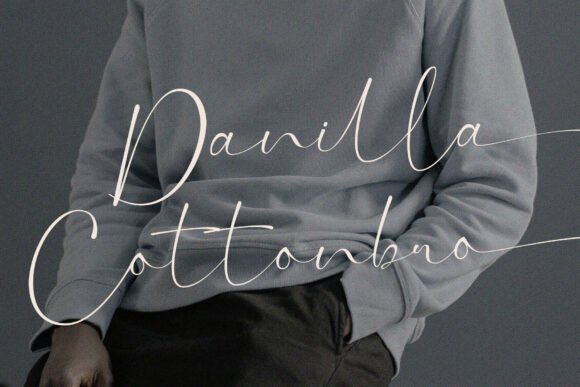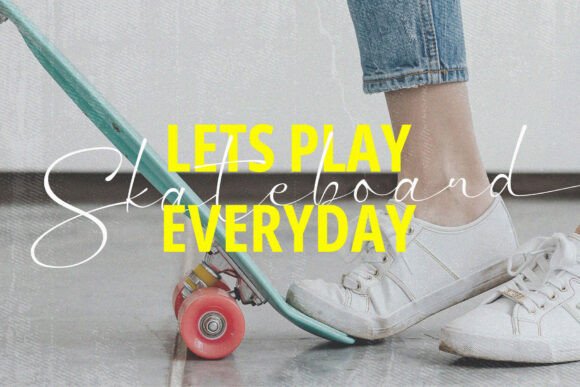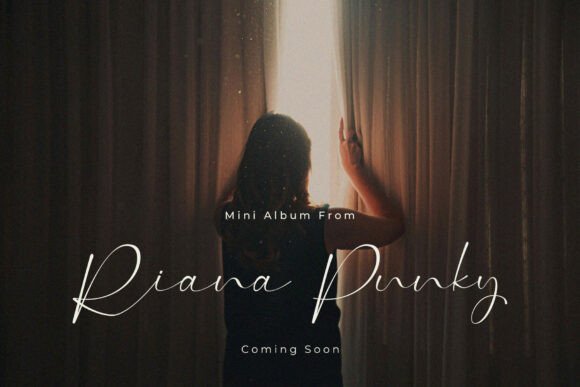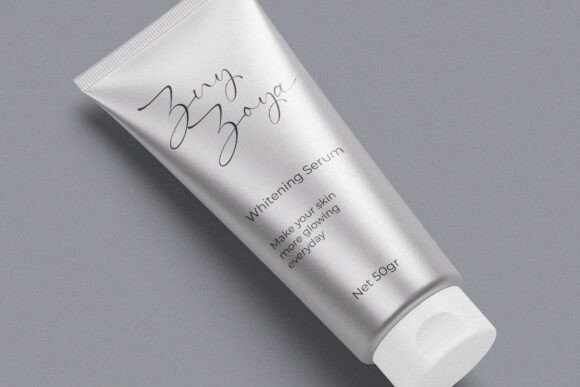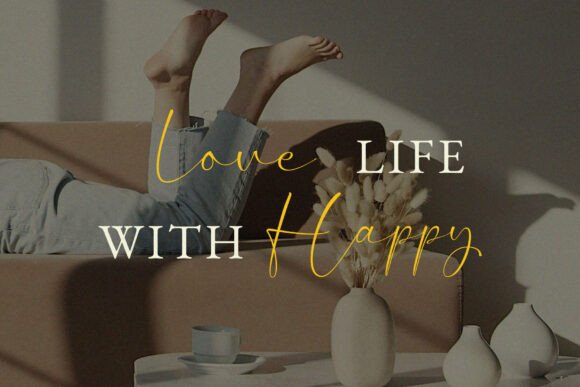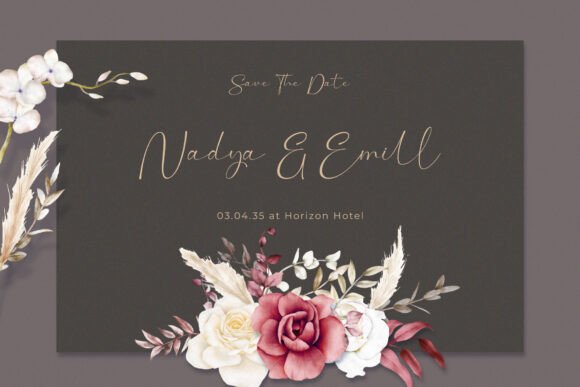
Introduction to Romantic Session Font
Have you ever been working on a creative project and suddenly, a spark of inspiration hits you? The words flow effortlessly, and your design comes to life. For designers like you, finding the perfect font can be the difference between a good design and a great one. That’s where the new Romantic Session Font comes in – a beautiful, high-quality handwritten script that will elevate your designs to the next level.
With its elegant and stylish design, the Romantic Session Font is perfect for any creative project that needs a touch of romance and sophistication. From wedding invitations to social media graphics, this font is a design resource that will help you convey your message in a unique and captivating way. And the best part? It’s available for free download, making it an accessible and valuable addition to your design toolkit.
Key Features of Romantic Session Font
- High-quality design: The Romantic Session Font is crafted with attention to detail, ensuring a professional and elegant look for any creative project.
- Unique characteristics: The Romantic Session Font features a romantic and whimsical design, perfect for wedding invitations, greeting cards, and other creative projects that require a touch of elegance.
Honest Review: Romantic Session Font
As a designer, I’m always on the lookout for high-quality fonts that can elevate my creative projects. The Romantic Session Font caught my eye with its elegant and sophisticated vibe.
What works well is the font’s ability to add a touch of romance to any design. The elegant script and subtle flourishes make it perfect for weddings, anniversary invitations, and other romantic occasions. The font is also highly customizable, making it a great resource for designers who want to create unique and personalized designs.
Some notable features of the font include:
- ✨ Elegant script with subtle flourishes
- ✨ Highly customizable
- ⚠️ Limited support for non-English characters
- ⚠️ May not be suitable for bold or dramatic designs
Overall, I’m impressed with the Romantic Session Font’s quality and versatility. It’s a great addition to any designer’s toolkit, especially for those working on romantic-themed projects. With a little creativity, this font can help bring your designs to life.
The Romantic Session Font is a high-quality design resource ideal for creative projects that require a touch of elegance and sophistication. This font is perfect for weddings, anniversaries, and other romantic occasions.
The Romantic Session Font is perfect for:
Anniversary cards and gifts
Valentine’s Day cards and gifts